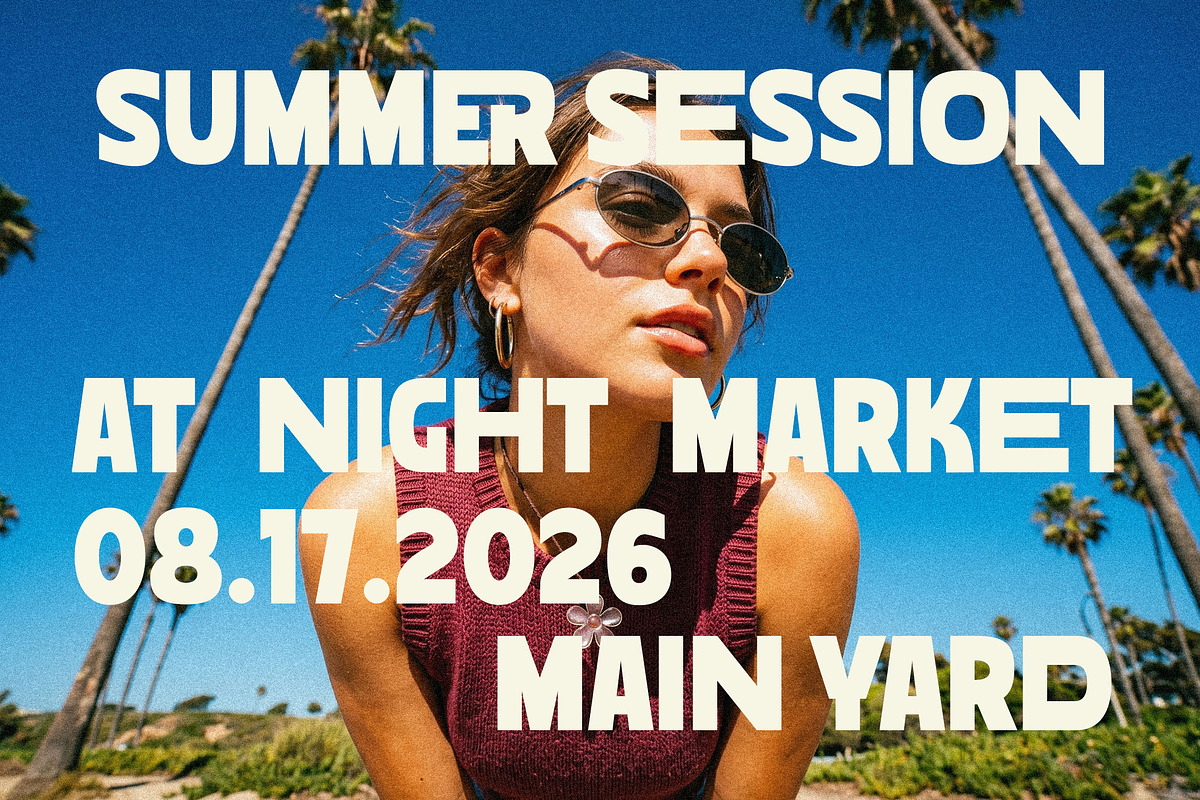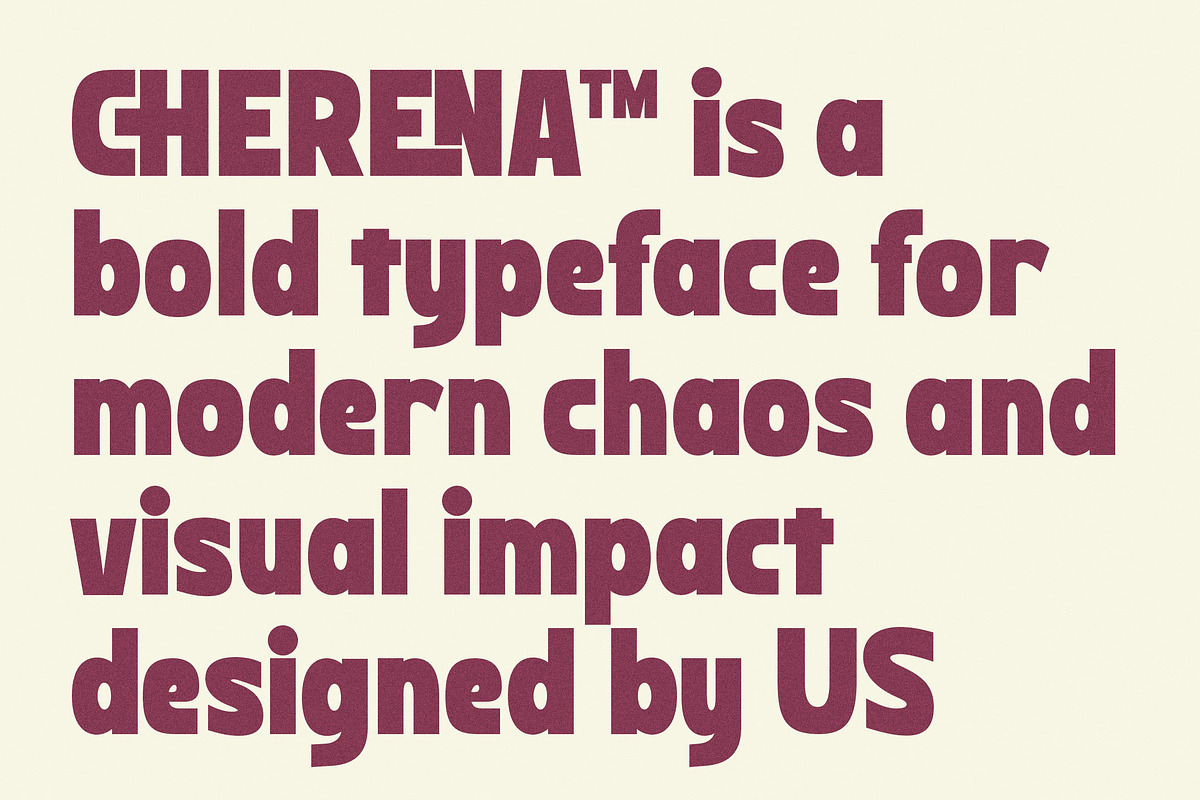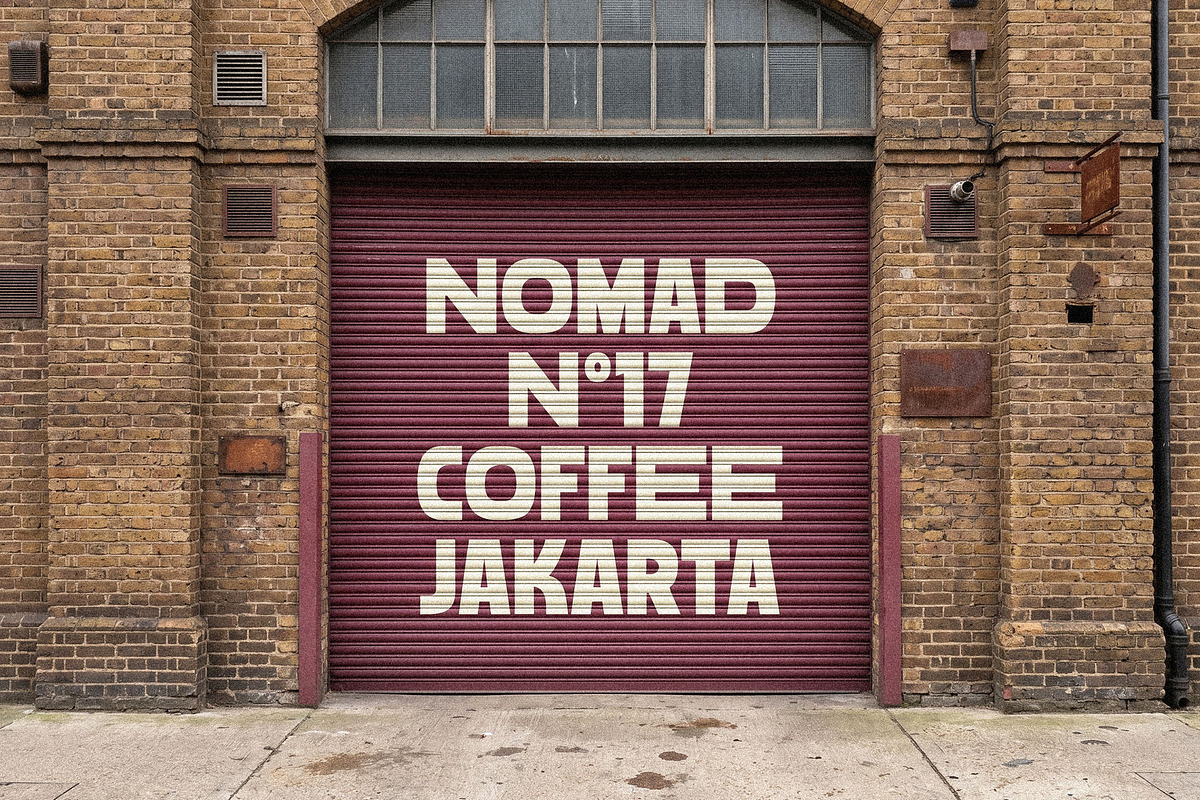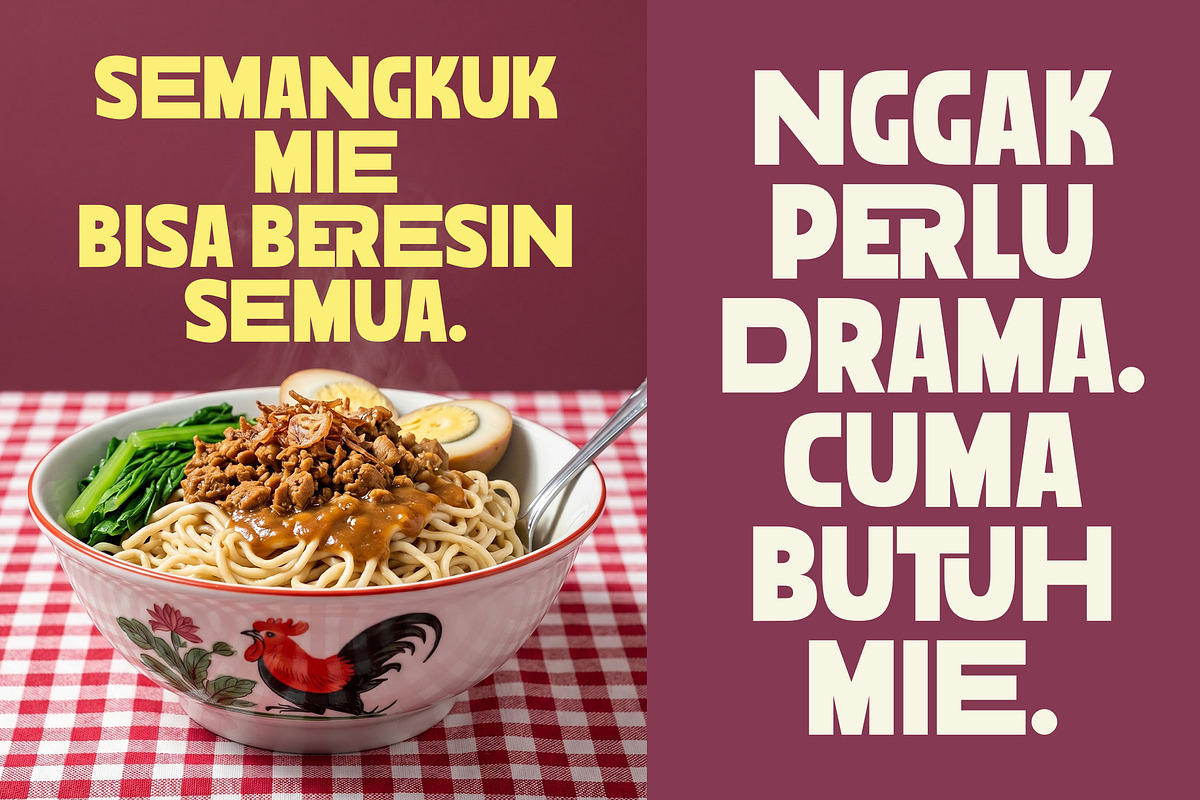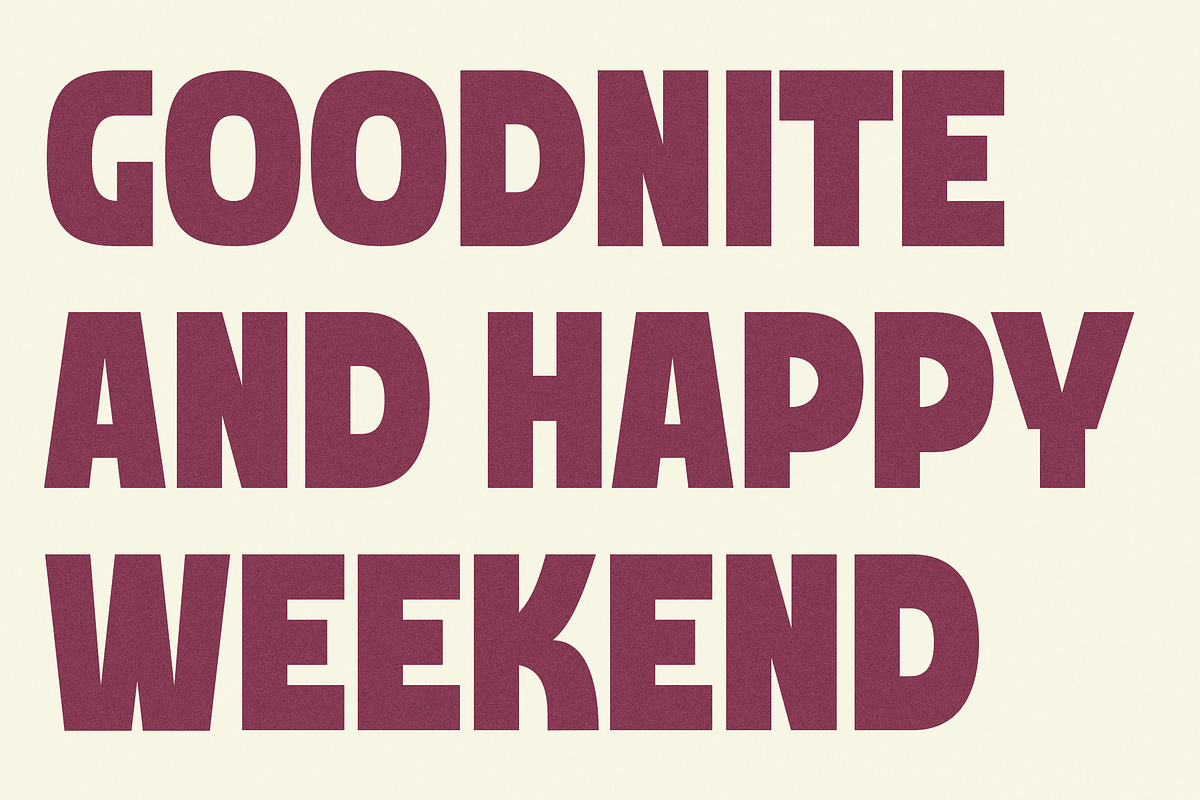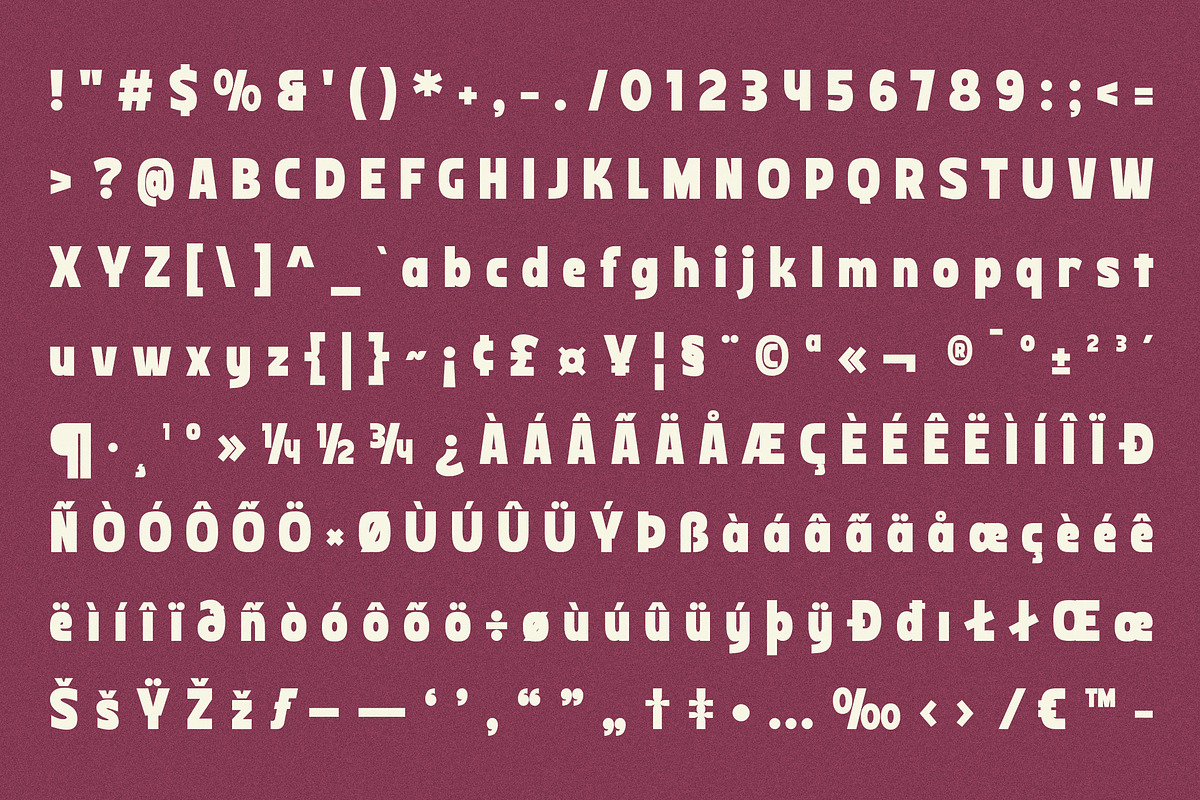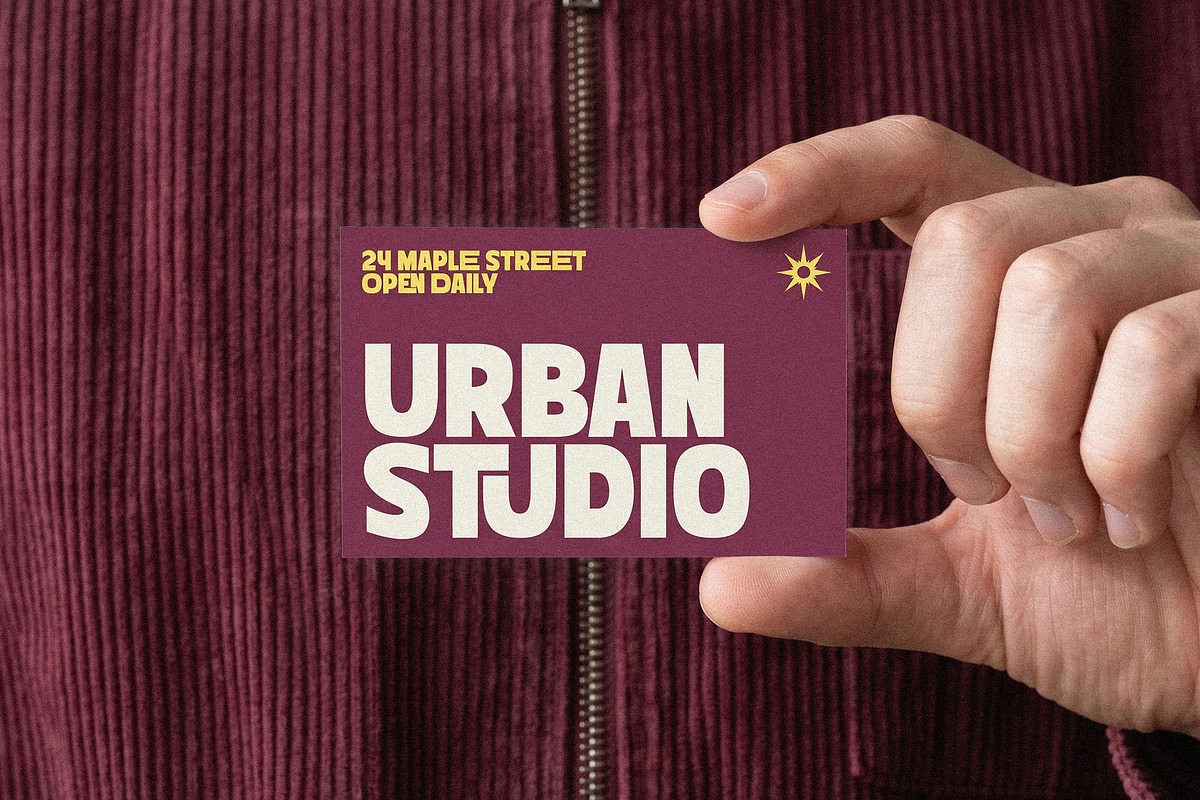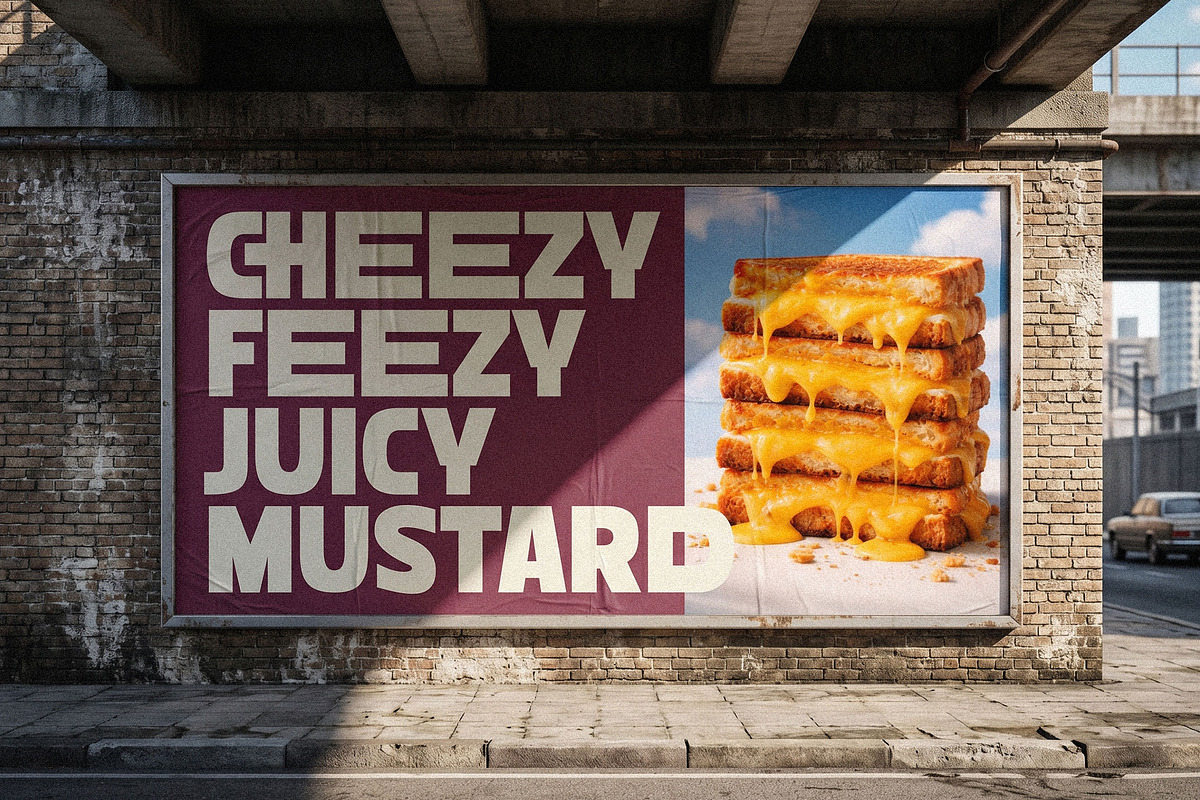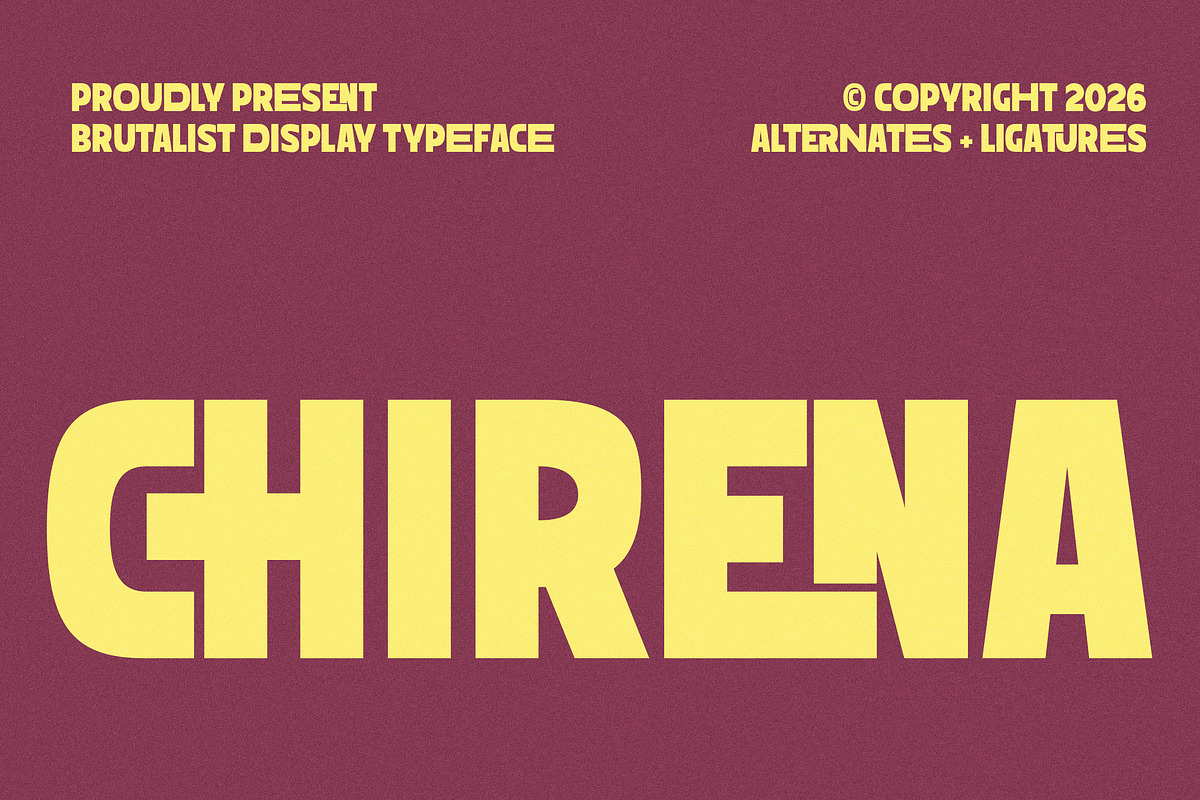
Chirena Sans Serif
Introducing Chirena, a clean, minimalist, modern display font with a modern geometric style that has a distinctive futuristic and experimental touch. This font features sharp, angular letterforms combined with smooth curves, creating a dynamic balance between rigidity and fluidity.
Chirena is a sleek and versatile sans serif, designed and perfect for logos, product packaging, titles, website headers, posters, editorials, magazines, luxury packaging, sophisticated headlines, fashion, beauty, and premium branding.